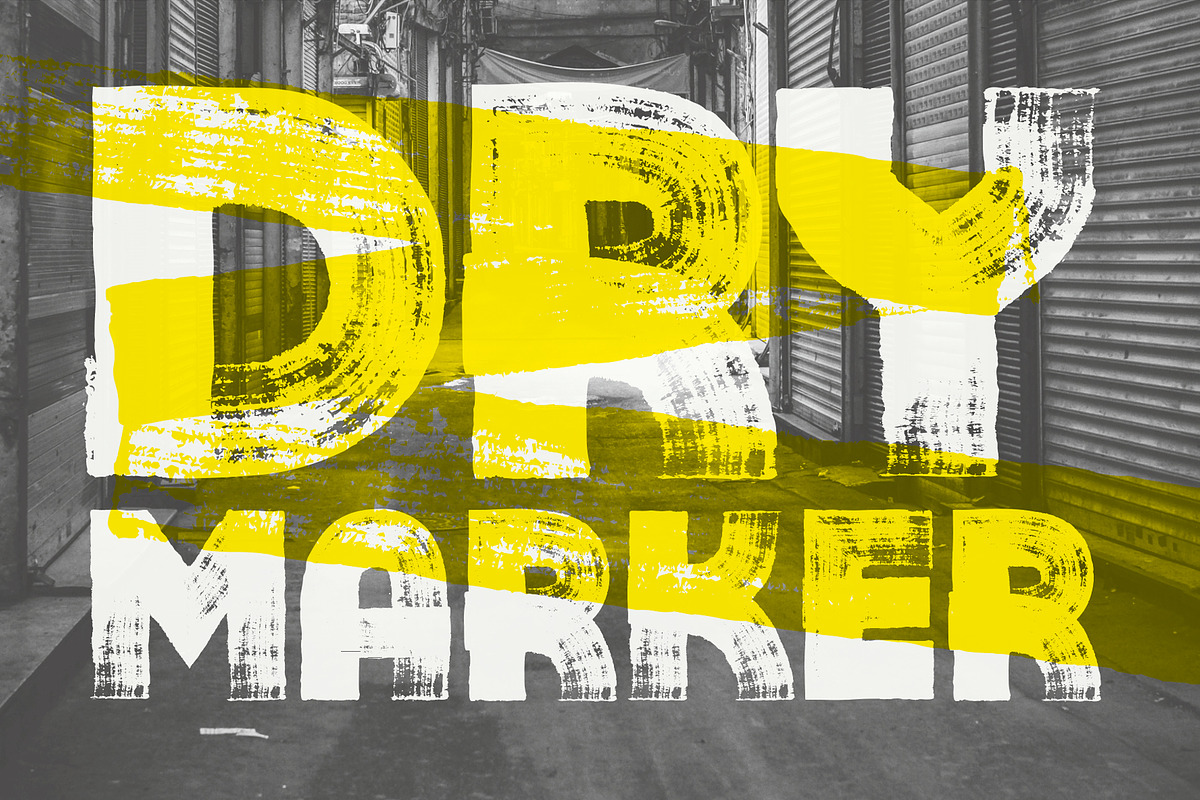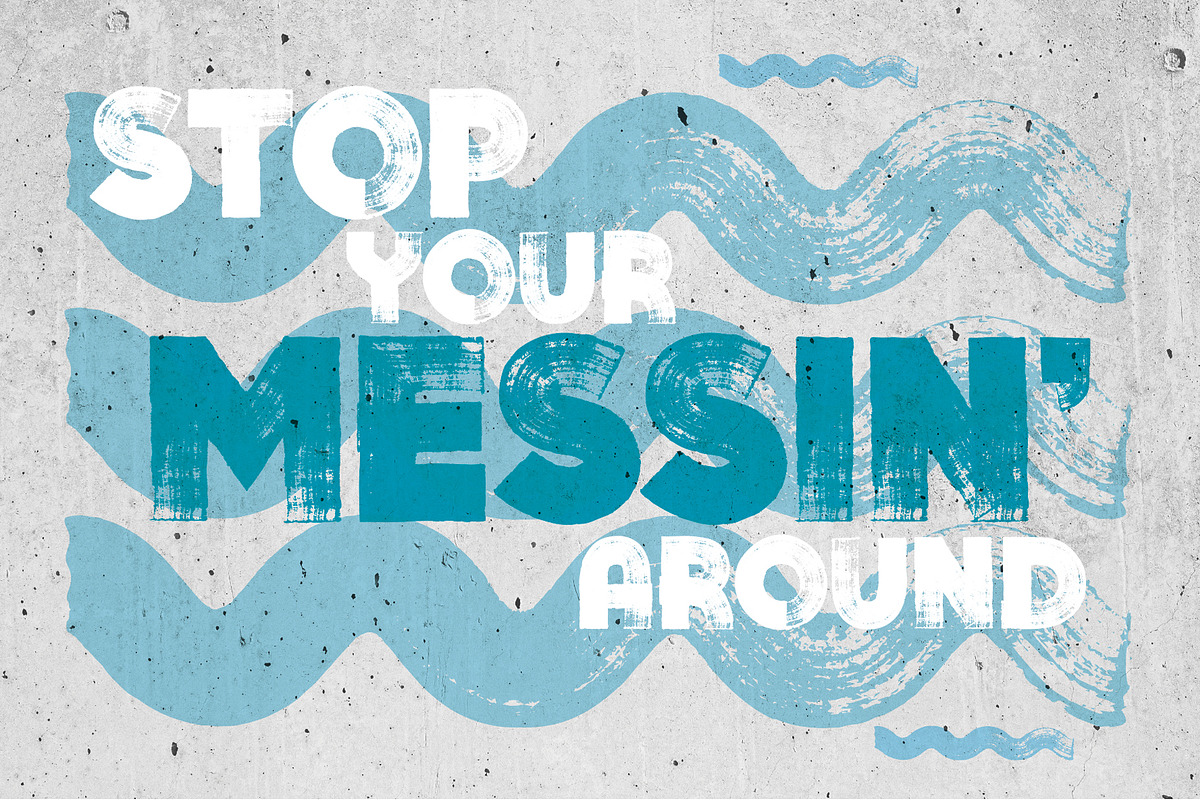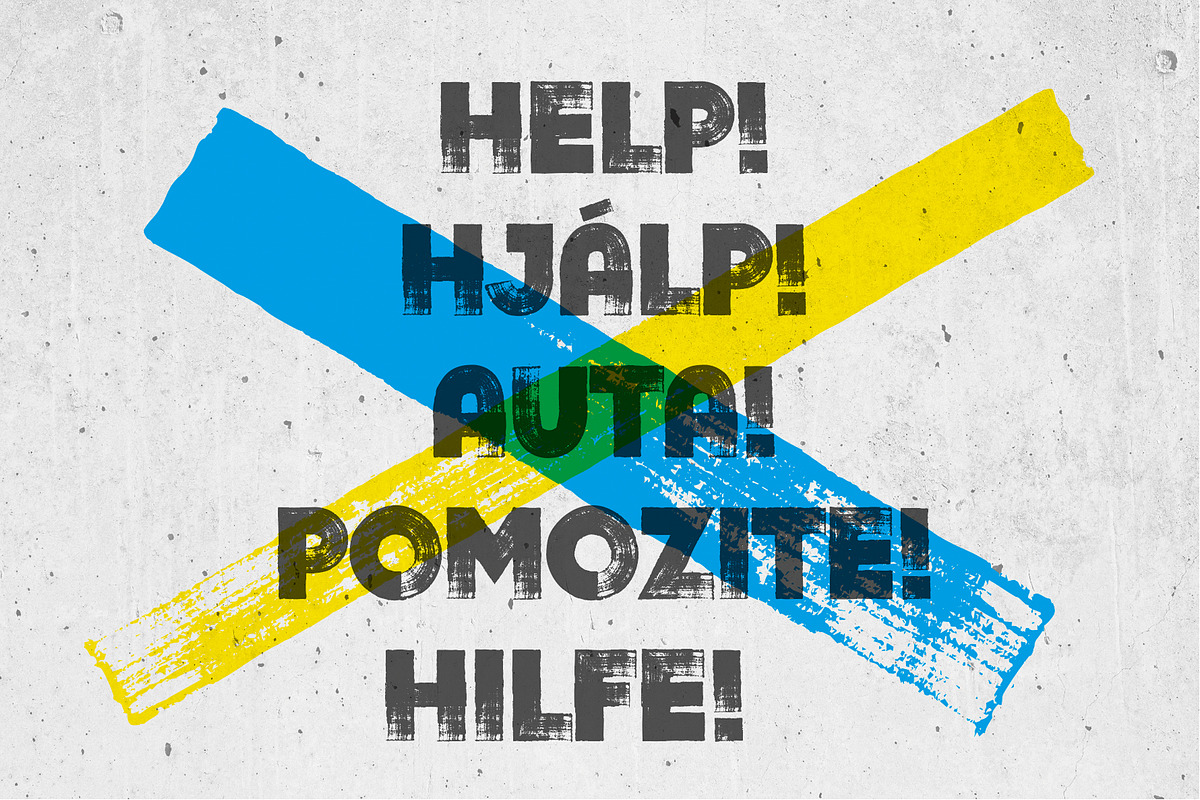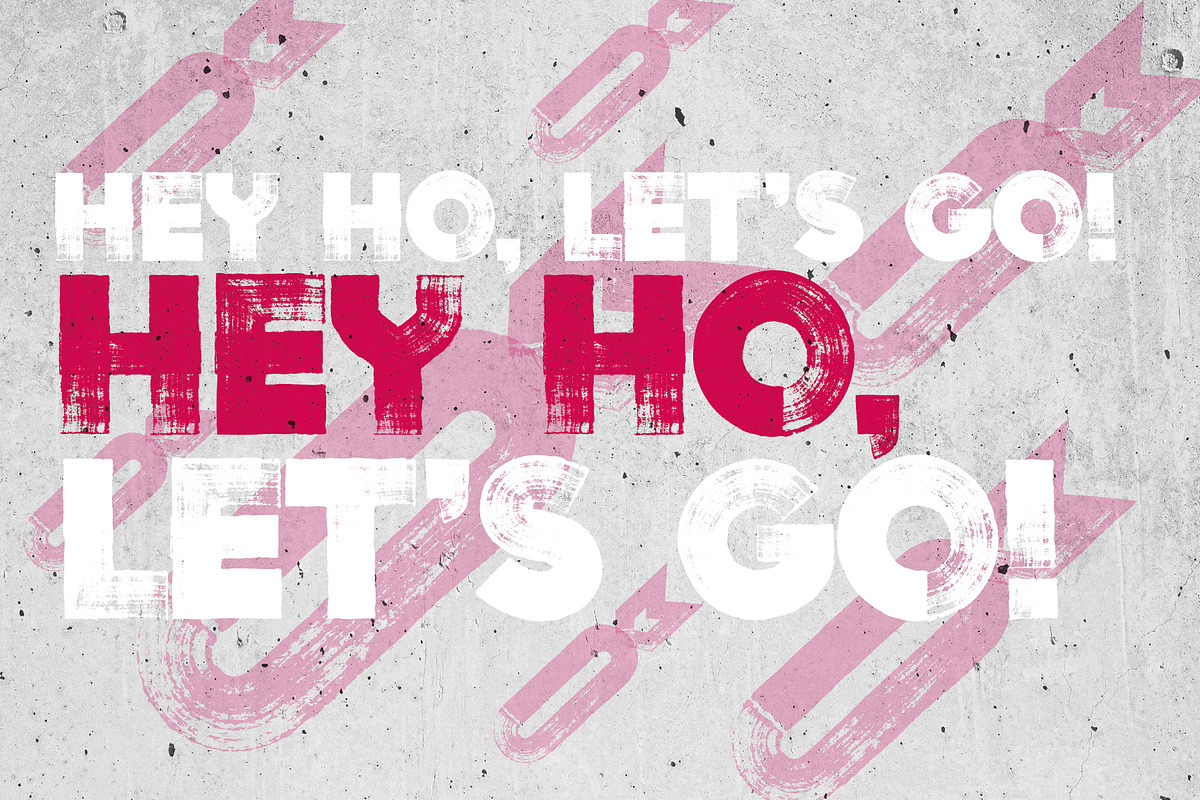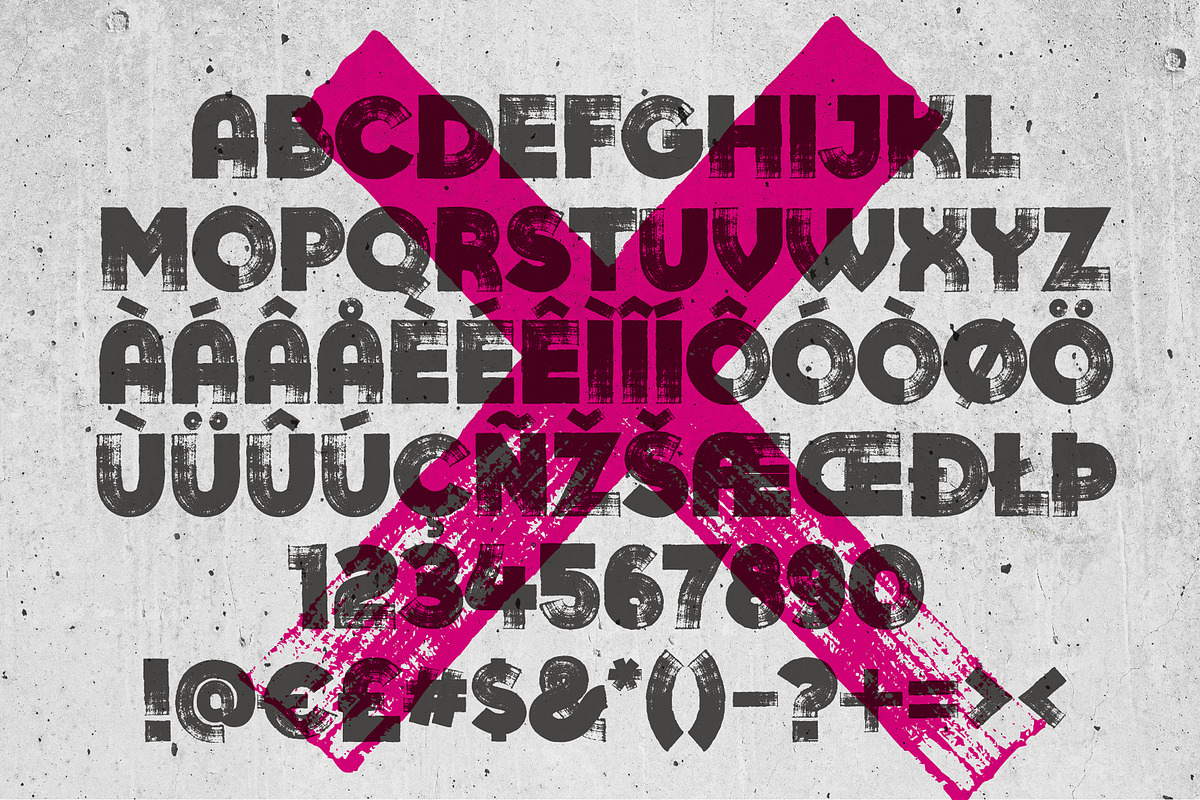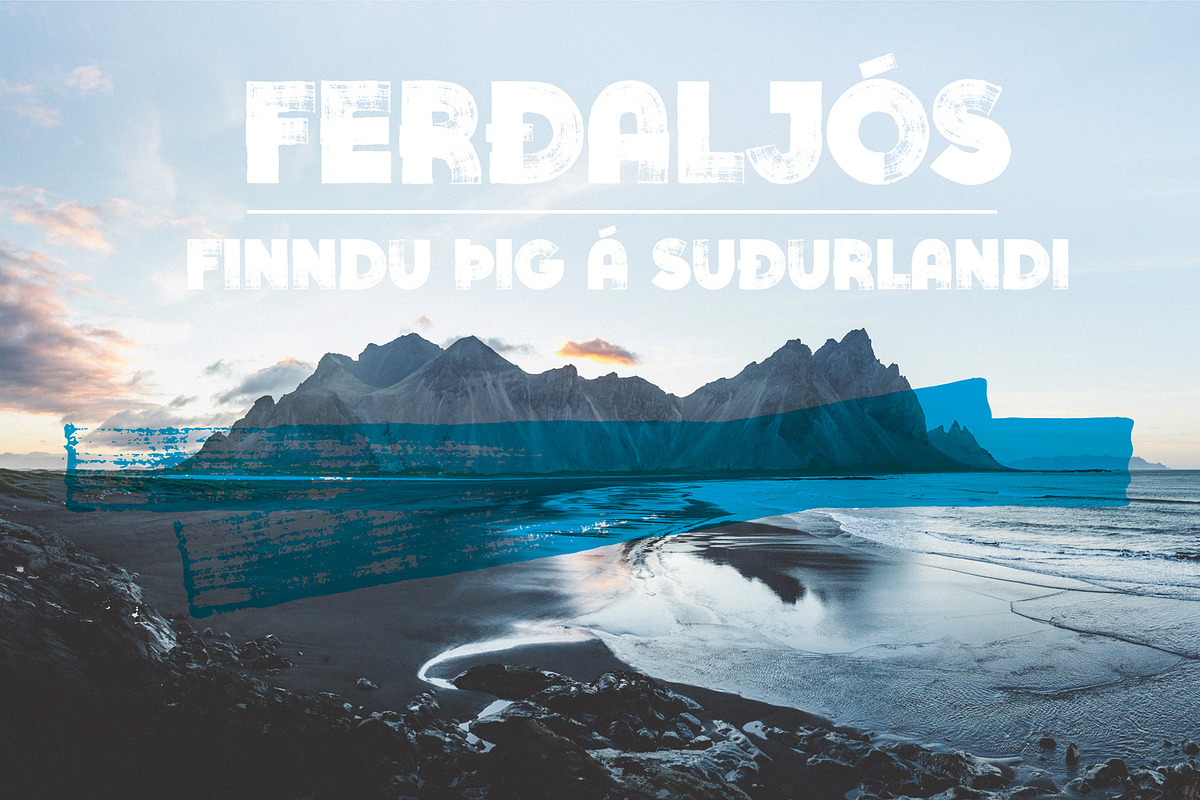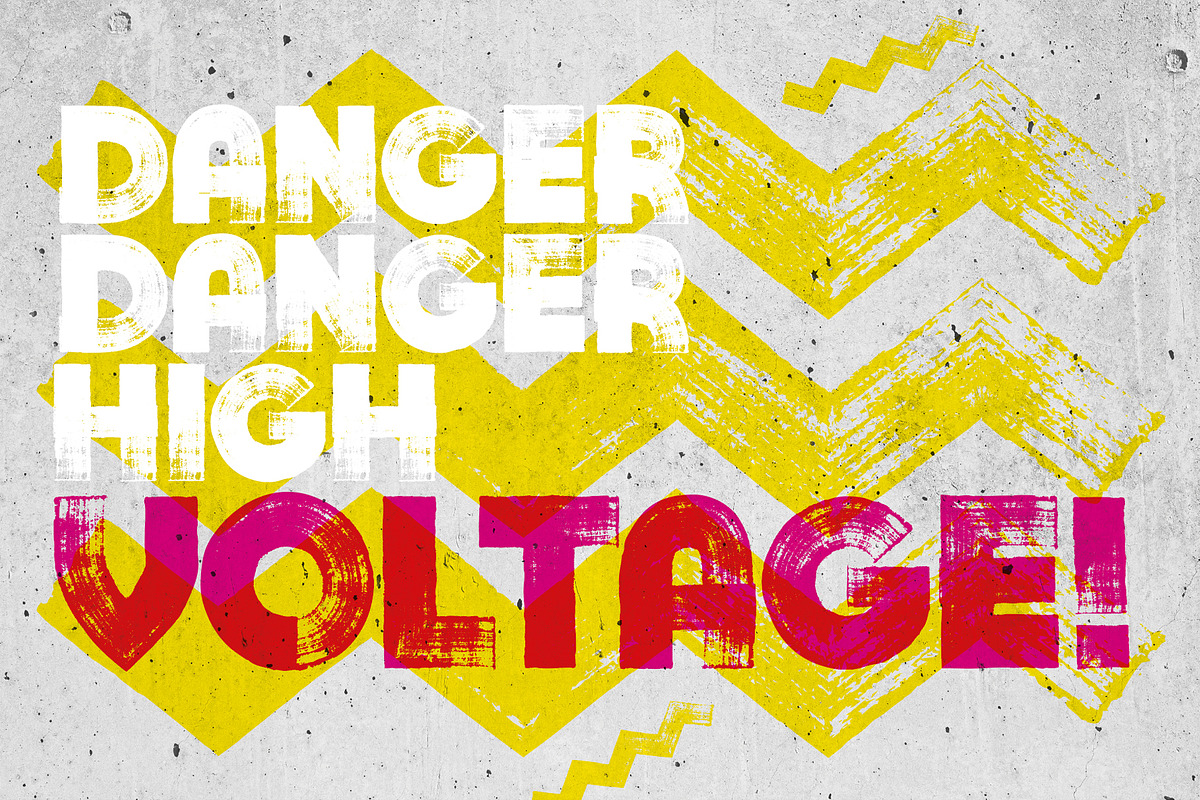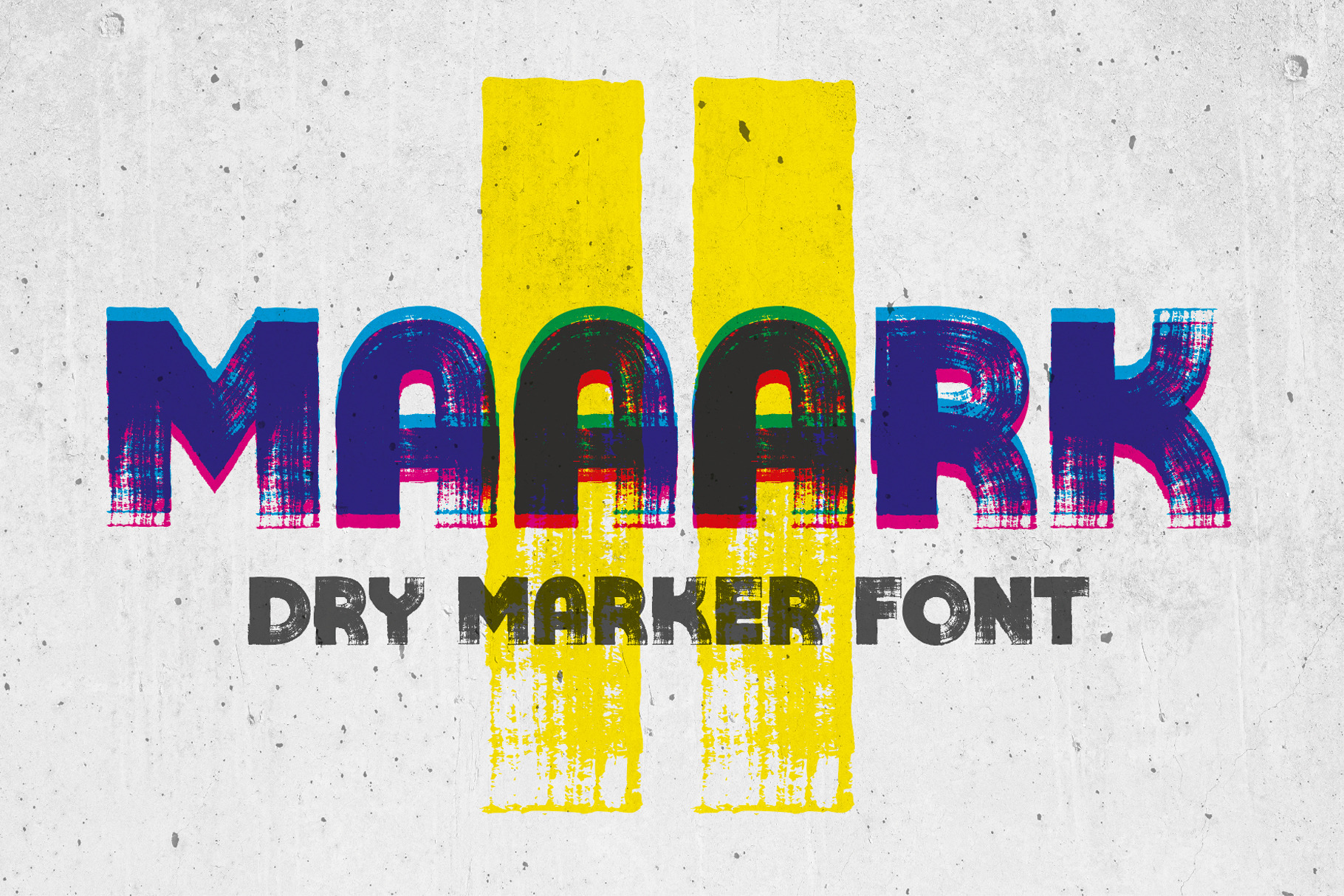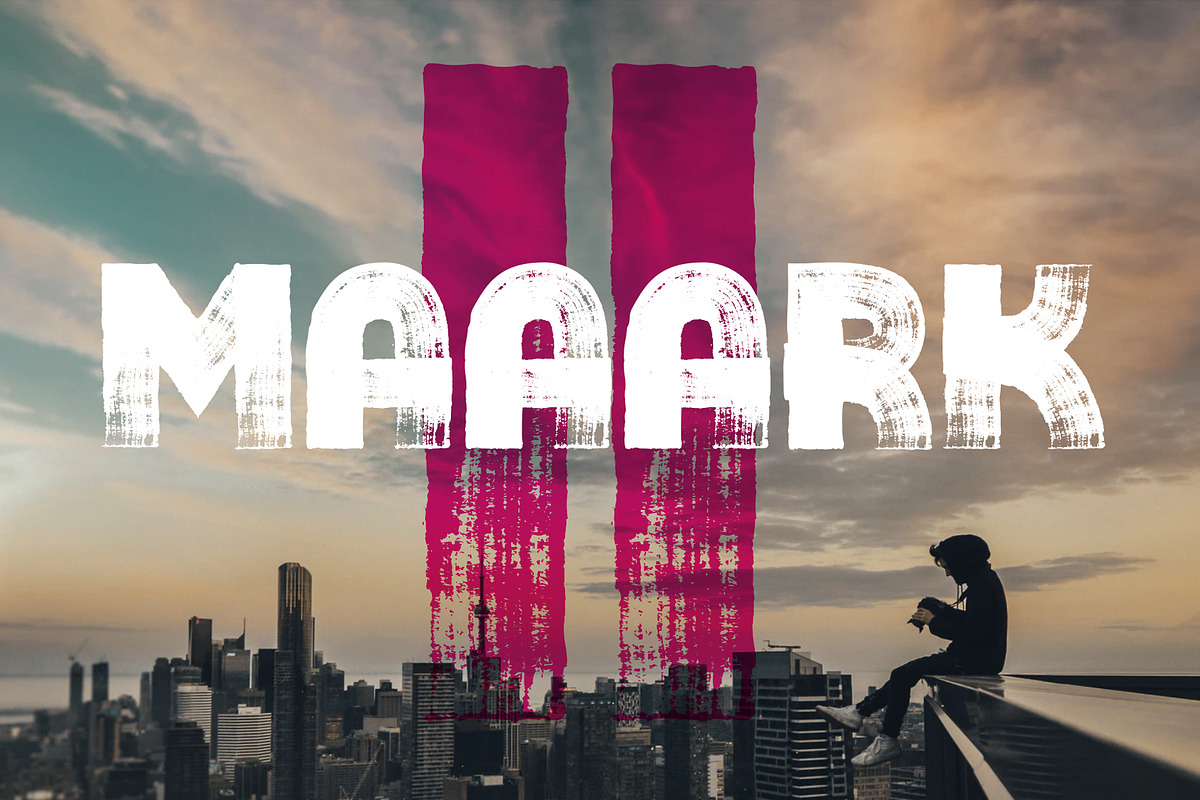
Maaark II | Dry marker font
Maaark 2 is a super cool, super dry, marker style font. It's super detailed, so it will still look good on your super massive projects. Make your maaark with some grafitti, protest posters or a fashion magazine spread... Maaark 2's a super unique font that will always grab attention!